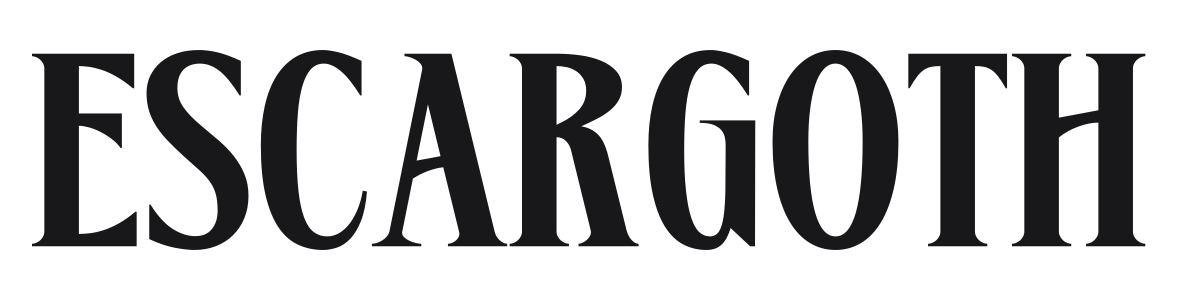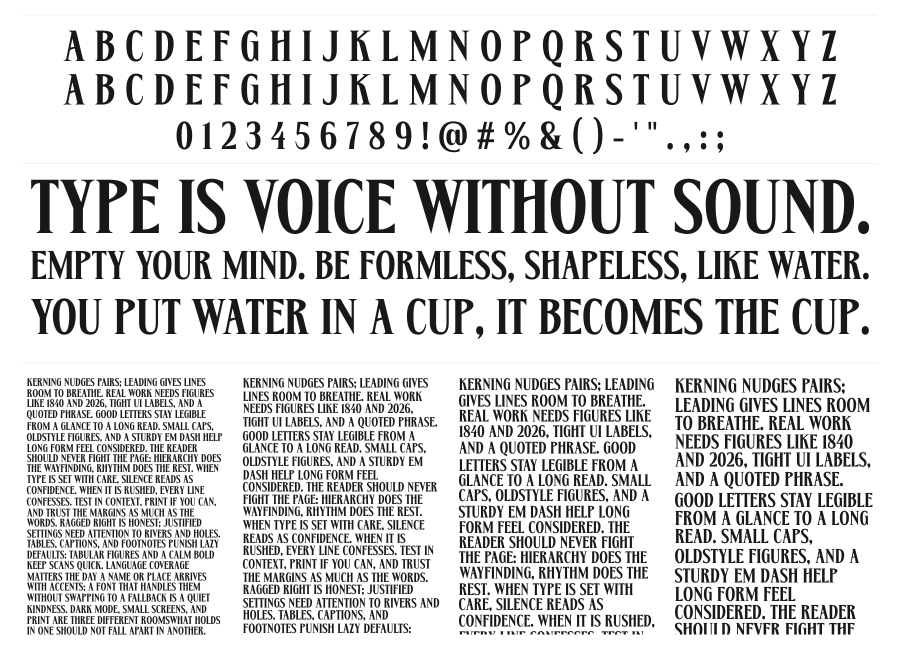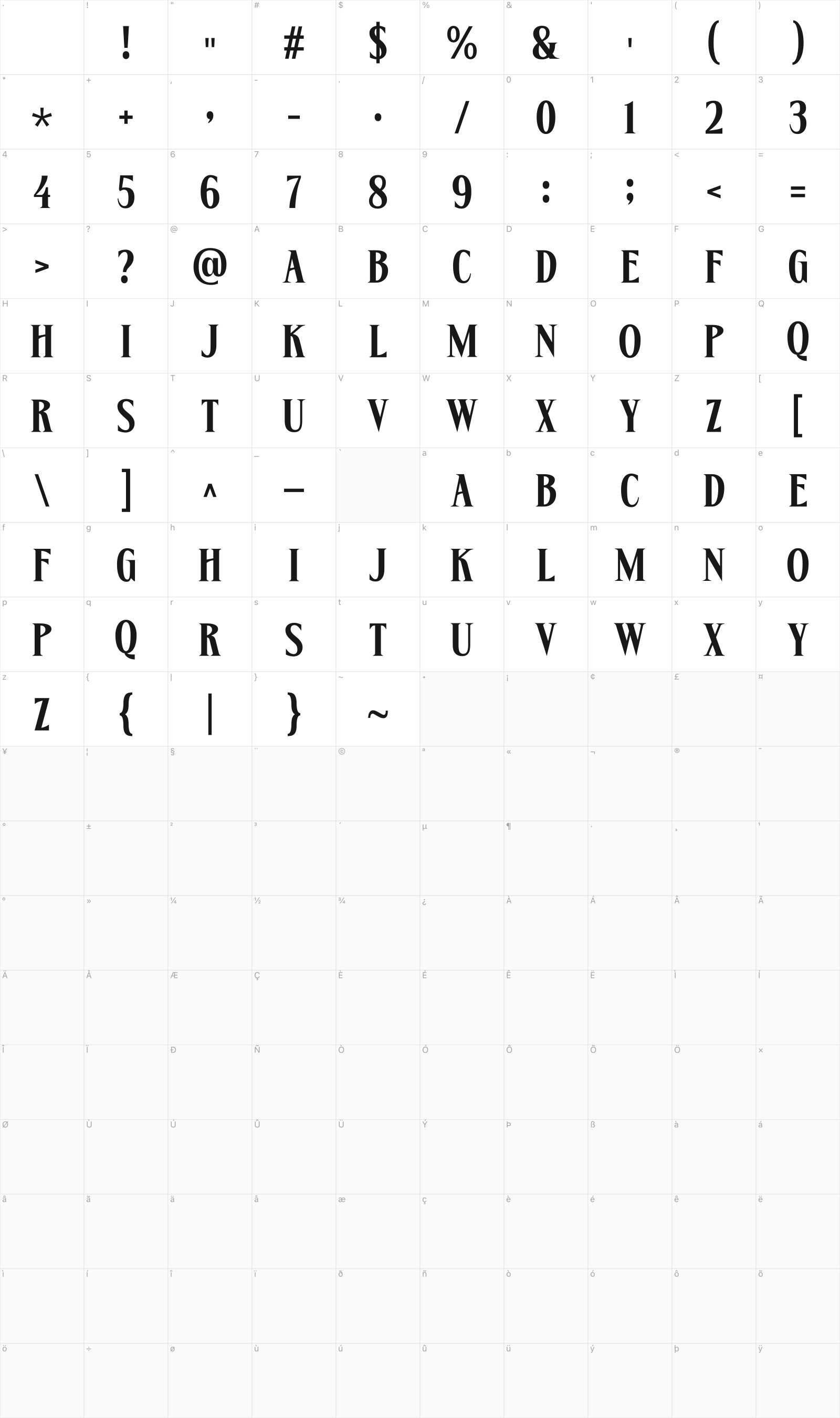
Escargoth
by Faqih Fawaji
Escargoth is a condensed gothic serif with extreme stroke contrast and tall, narrow proportions drawn from 19th-century display type traditions. The hairline serifs and thick stems create a dramatic tension that reads as both classic and fashion-forward. Strong at large sizes for mastheads, posters, and editorial headlines.